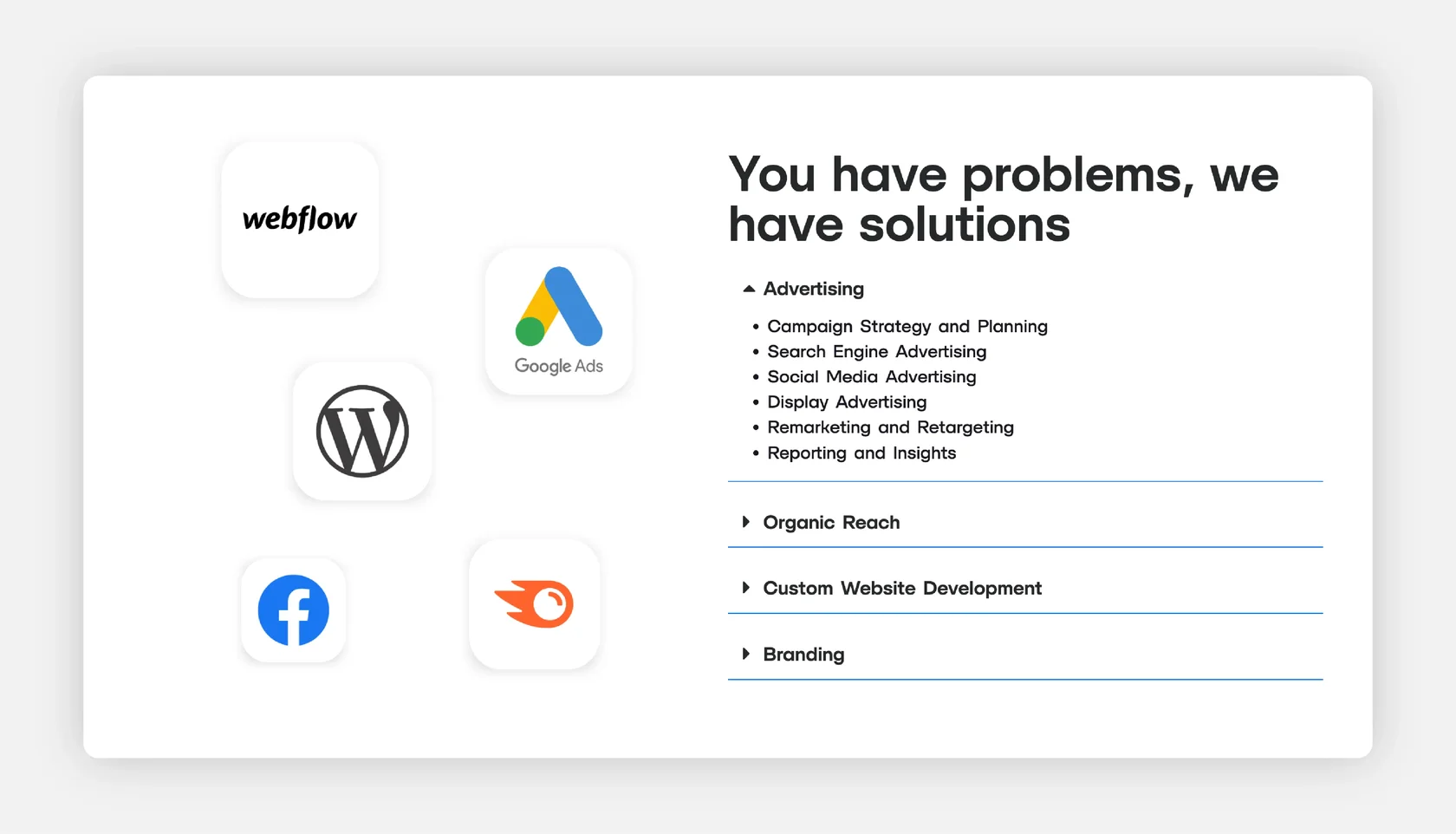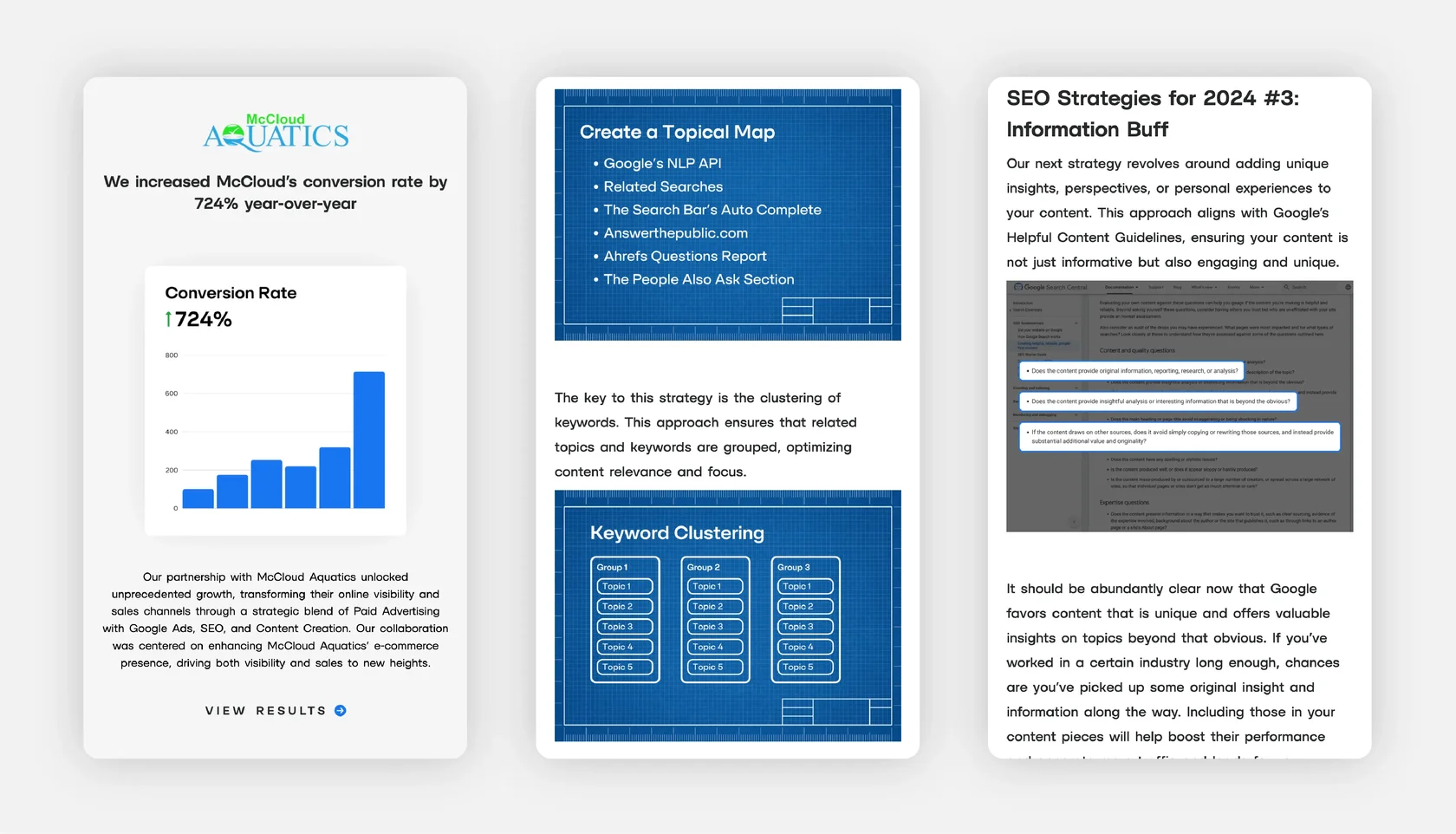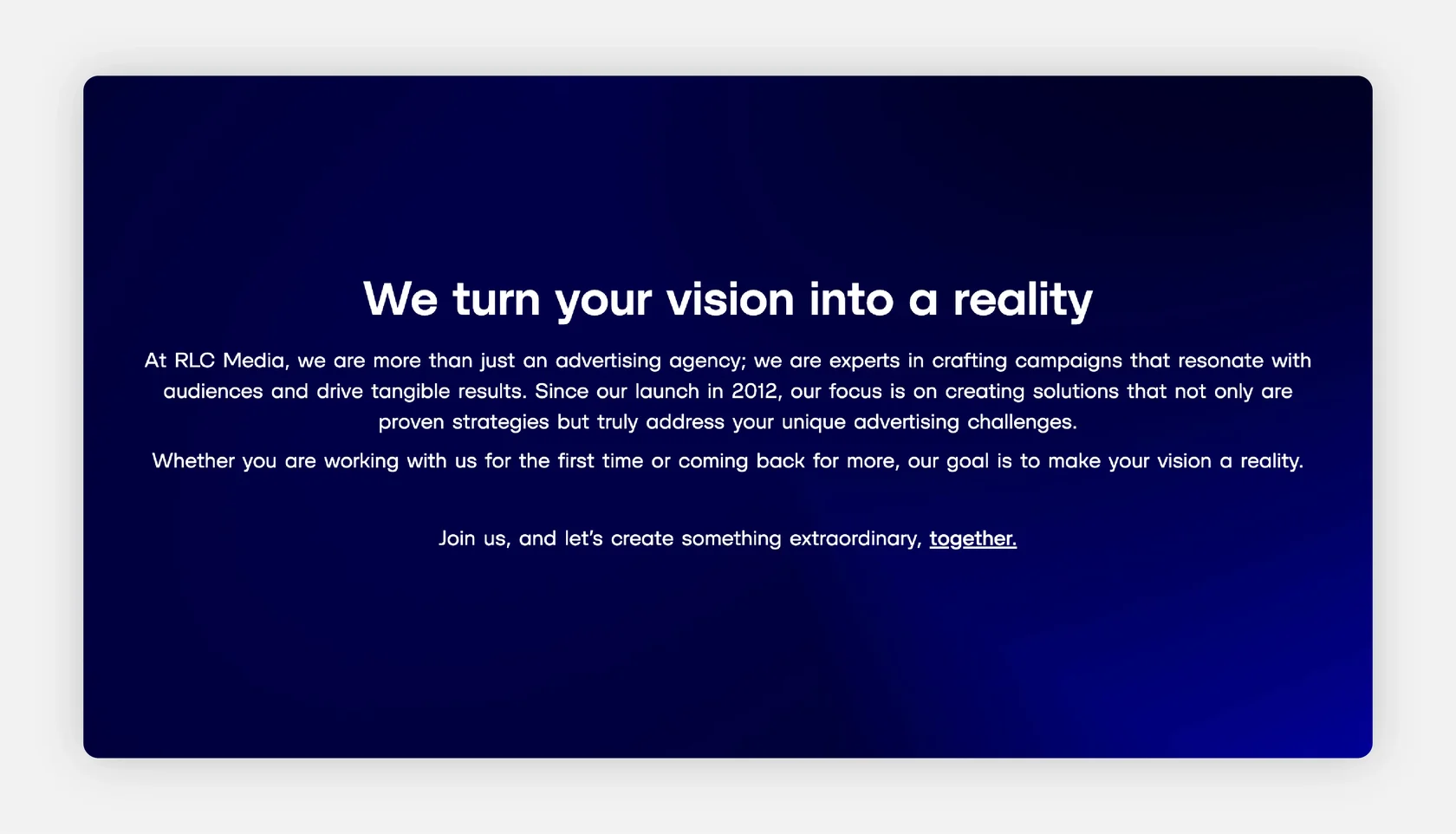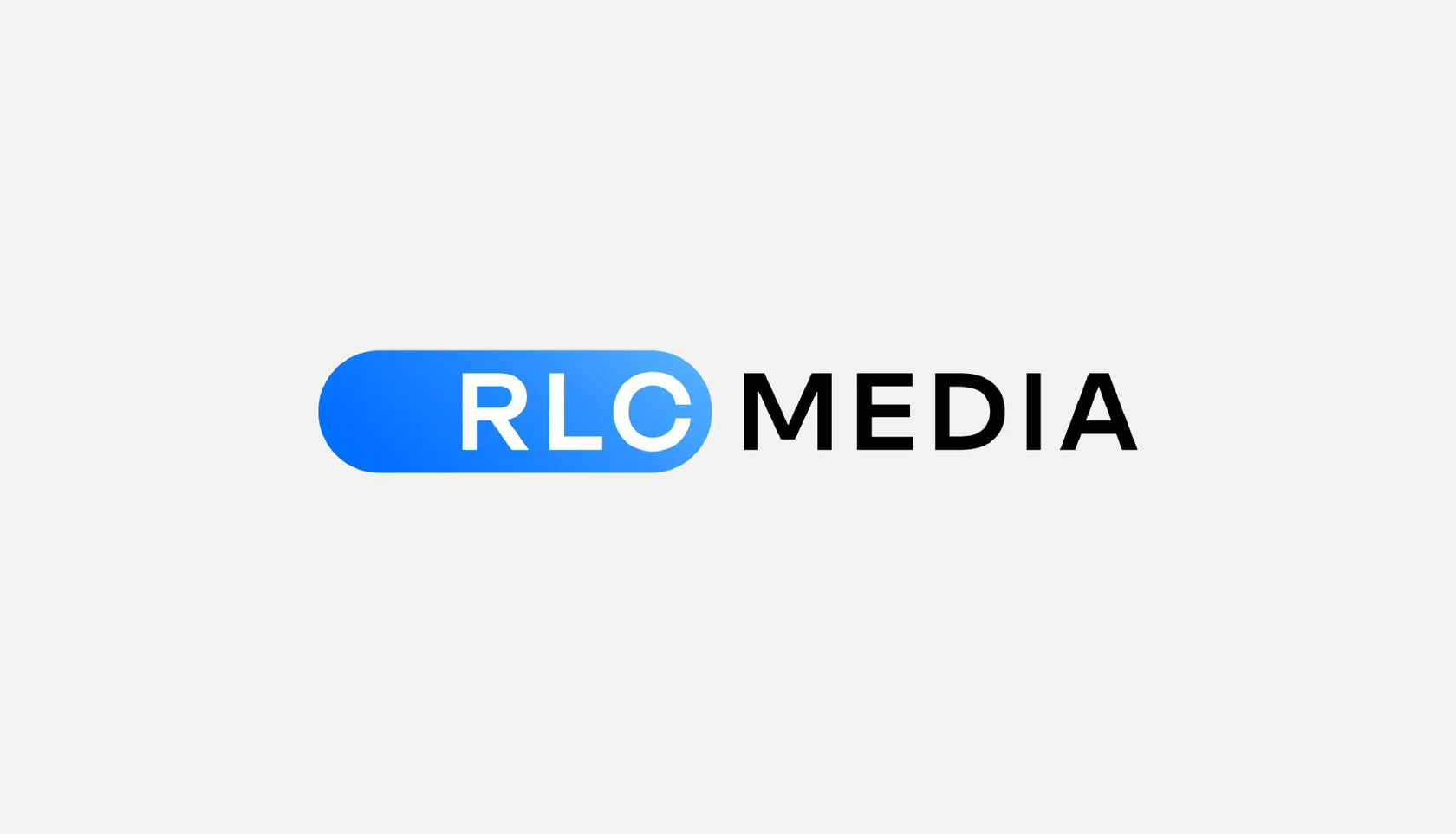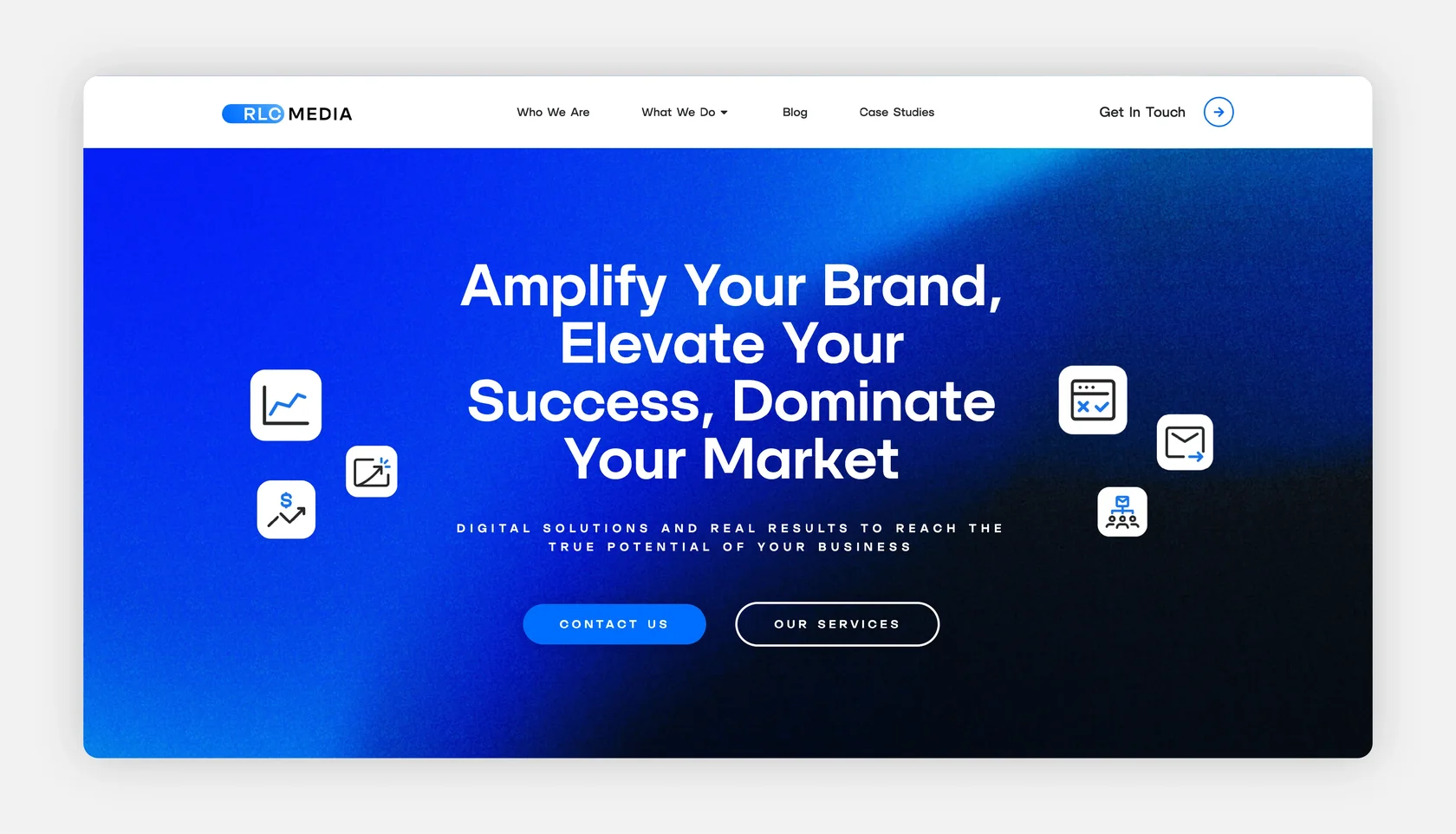
RLC Media — Performance-Driven Digital Marketing
Font: SFT Schrifted Sans (Regular, Medium, DemiBold, DemiBold Italic, Bold).
Use case: Logo, website design.
About the Project:
The RLC Media website presents the agency’s strategic and performance-focused approach to digital marketing. SFT Schrifted Sans is used throughout the identity to reinforce a confident, contemporary tone that aligns with their results-driven philosophy. Its balanced, structured forms support clarity in presenting services and case highlights, offering a straightforward visual language that reflects the agency’s emphasis on precision, expertise, and practical execution.
Why SFT Schrifted Sans?
SFT Schrifted Sans supports RLC Media’s practical, data-led voice with clean forms and structured rhythm. Used for headlines, section leads, and UI copy, it delivers crisp readability and a professional tone that underscores credibility and results-focused communication.